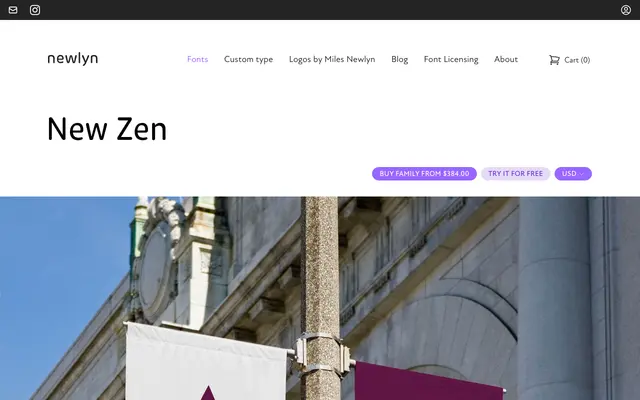
New Zen Italic
A seven-weight italic companion to New Zen, designed for use alongside the roman in editorial and text settings.
New Zen Italic spans seven weights from Thin to ExtraBold, mirroring the structure of the roman family and intended for use in combination with it. The specimen leans on Old Master painting titles and Latin text to demonstrate legibility across display and text sizes. Sold as part of the broader New Zen collection, which totals fourteen styles across the two subfamilies.
The display samples and text behaviour suggest a refined transitional serif with upright and italic companions; the italic subfamily is marketed as a distinct but paired companion to New Zen's seven-weight roman range.